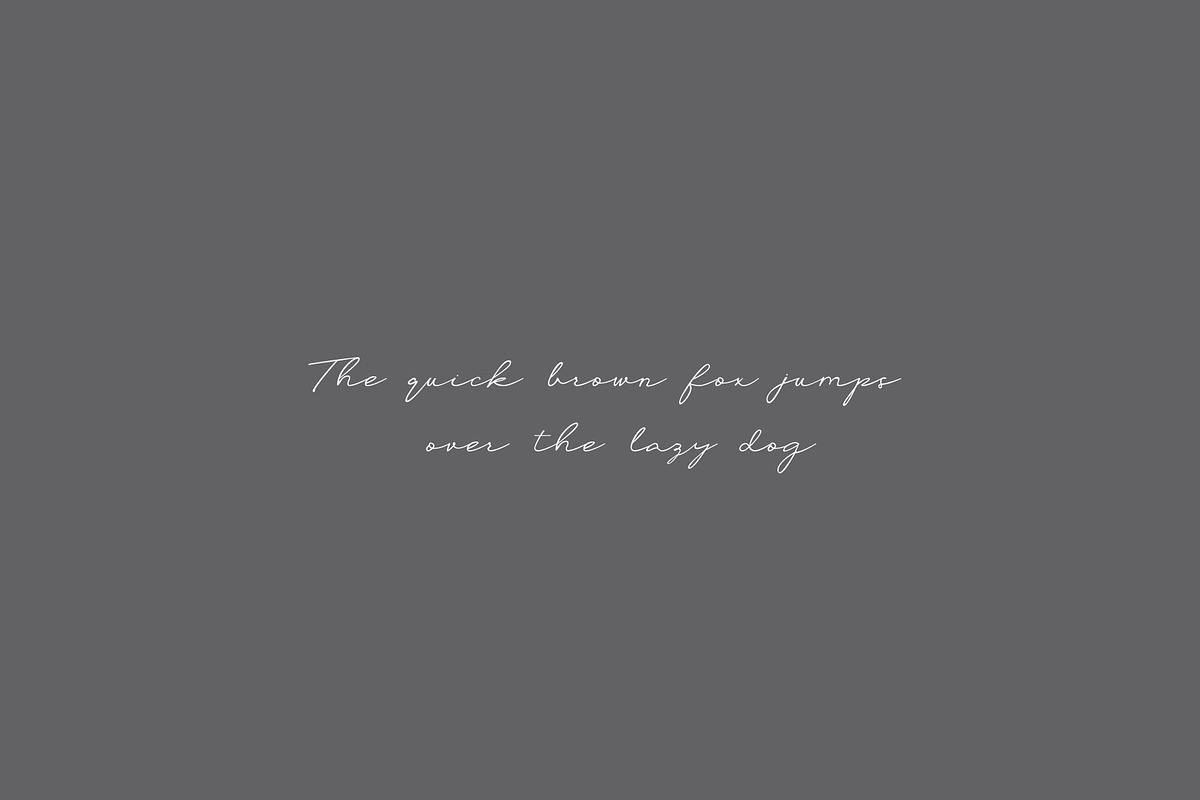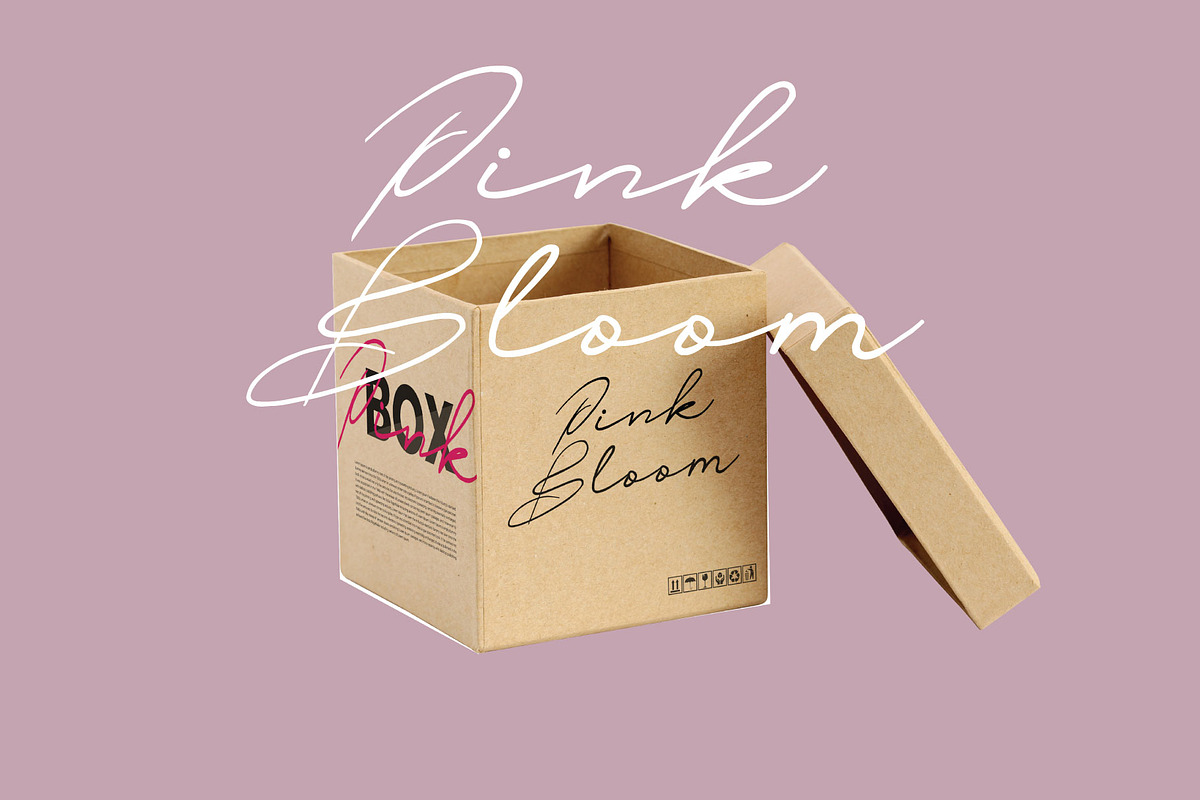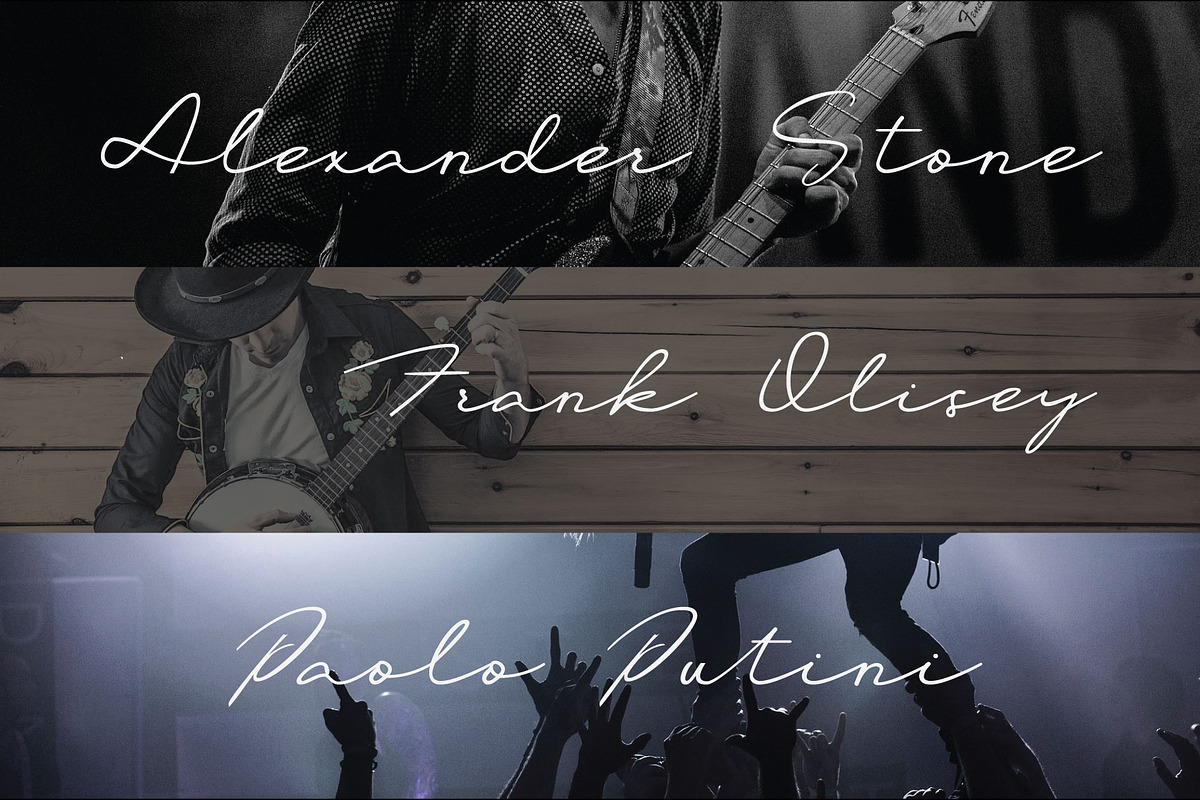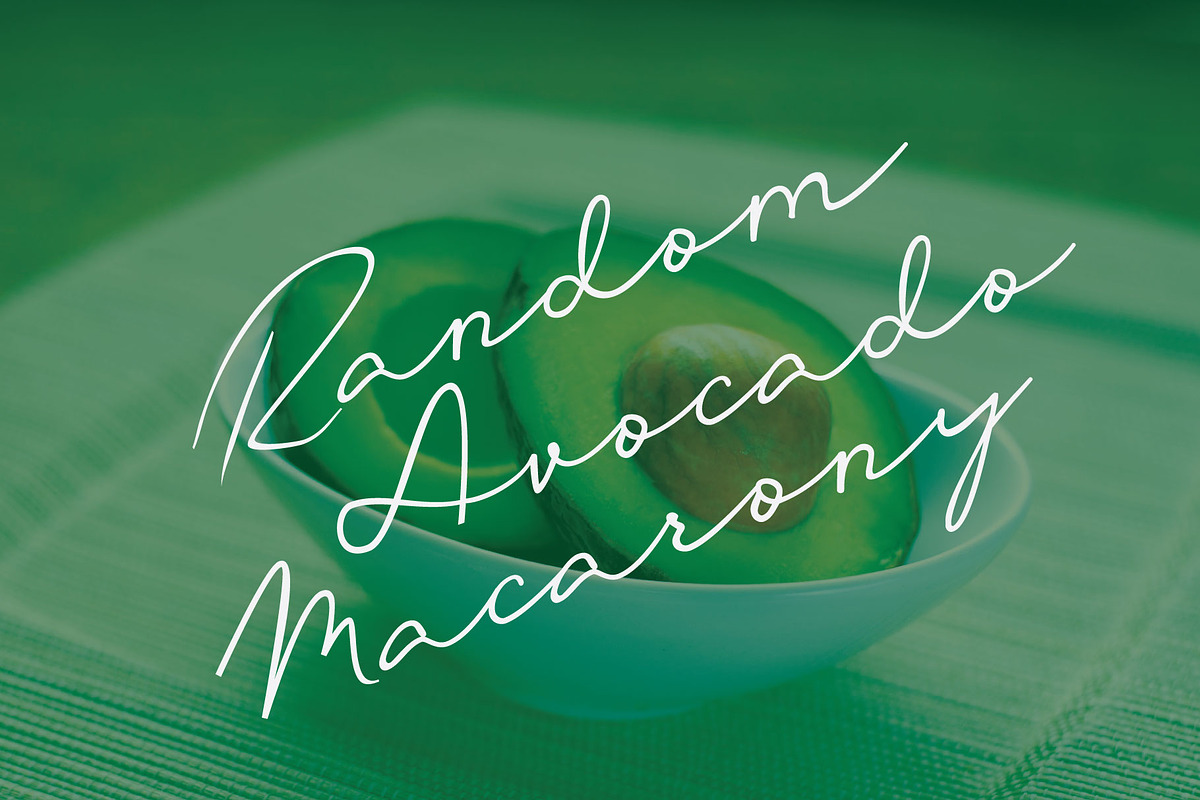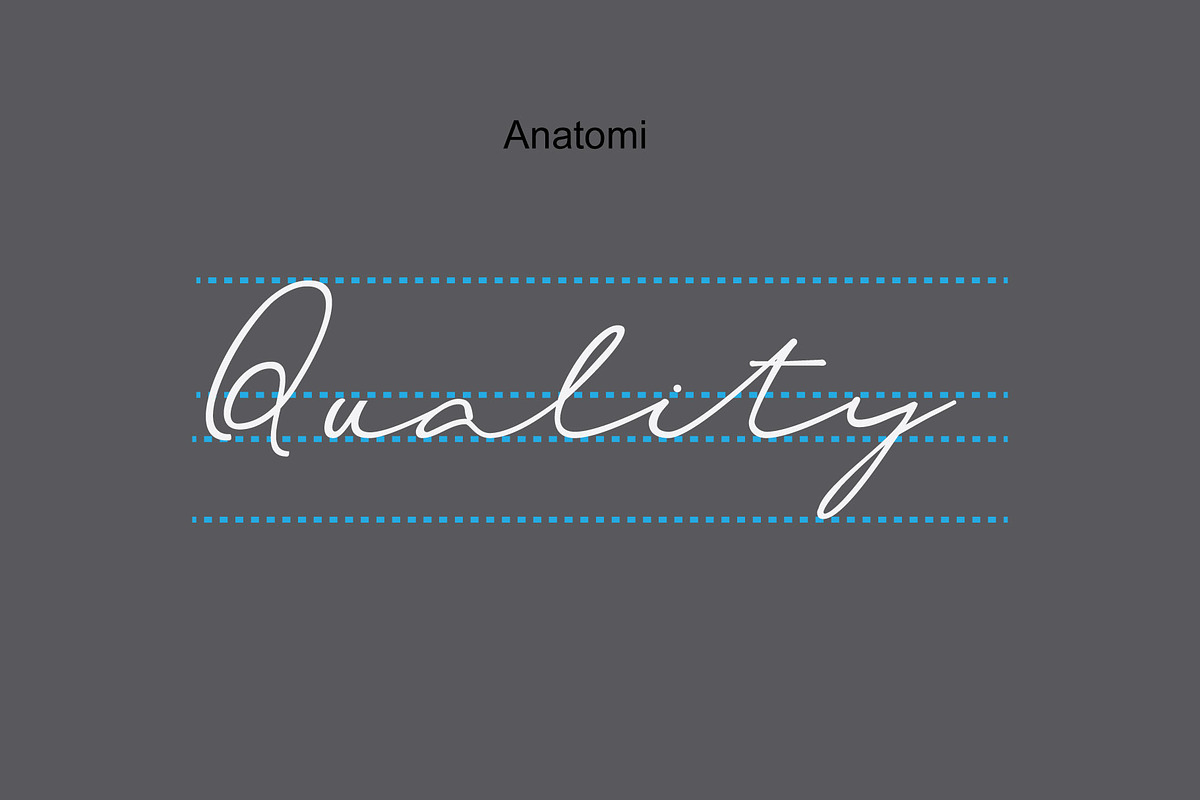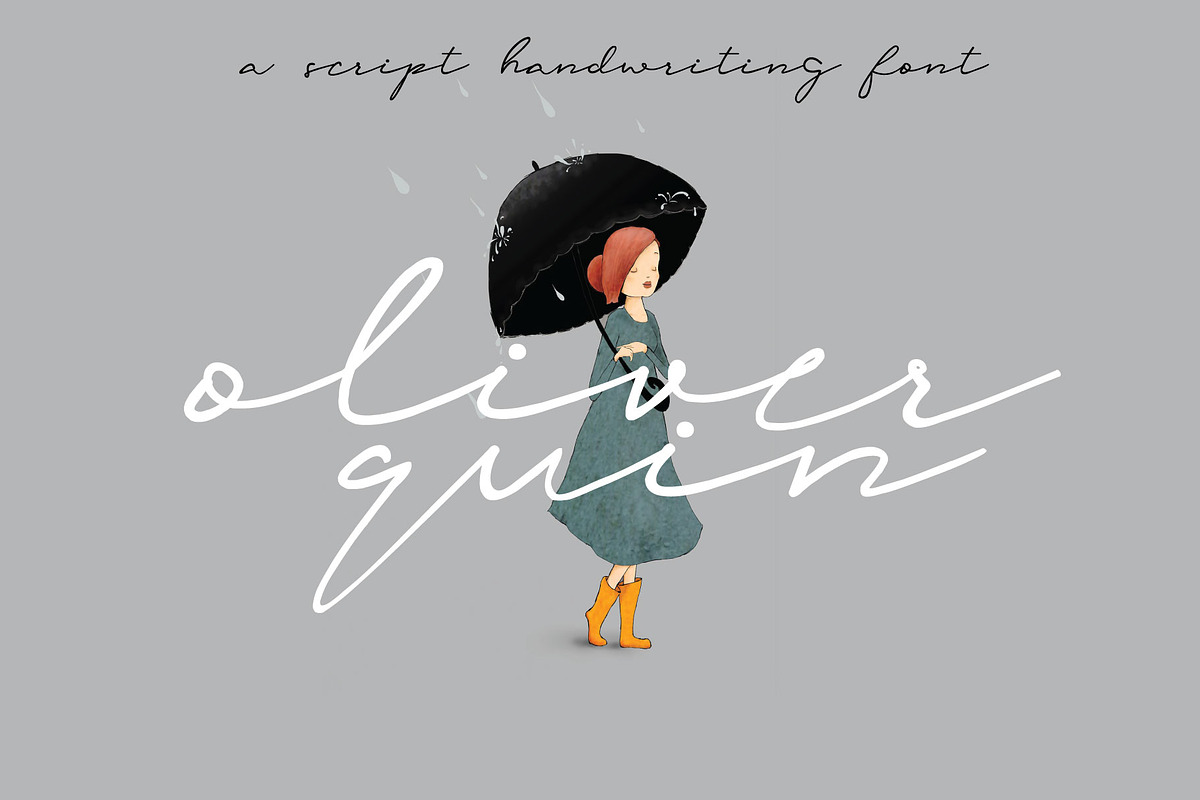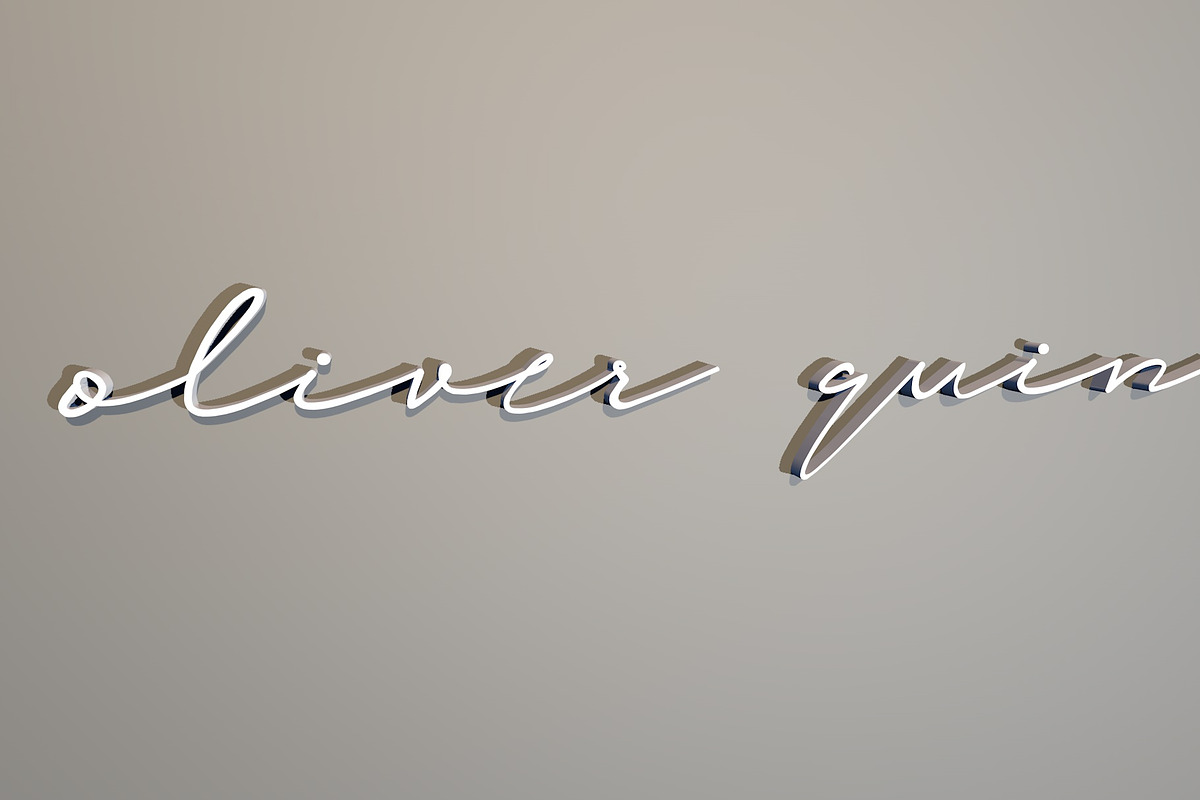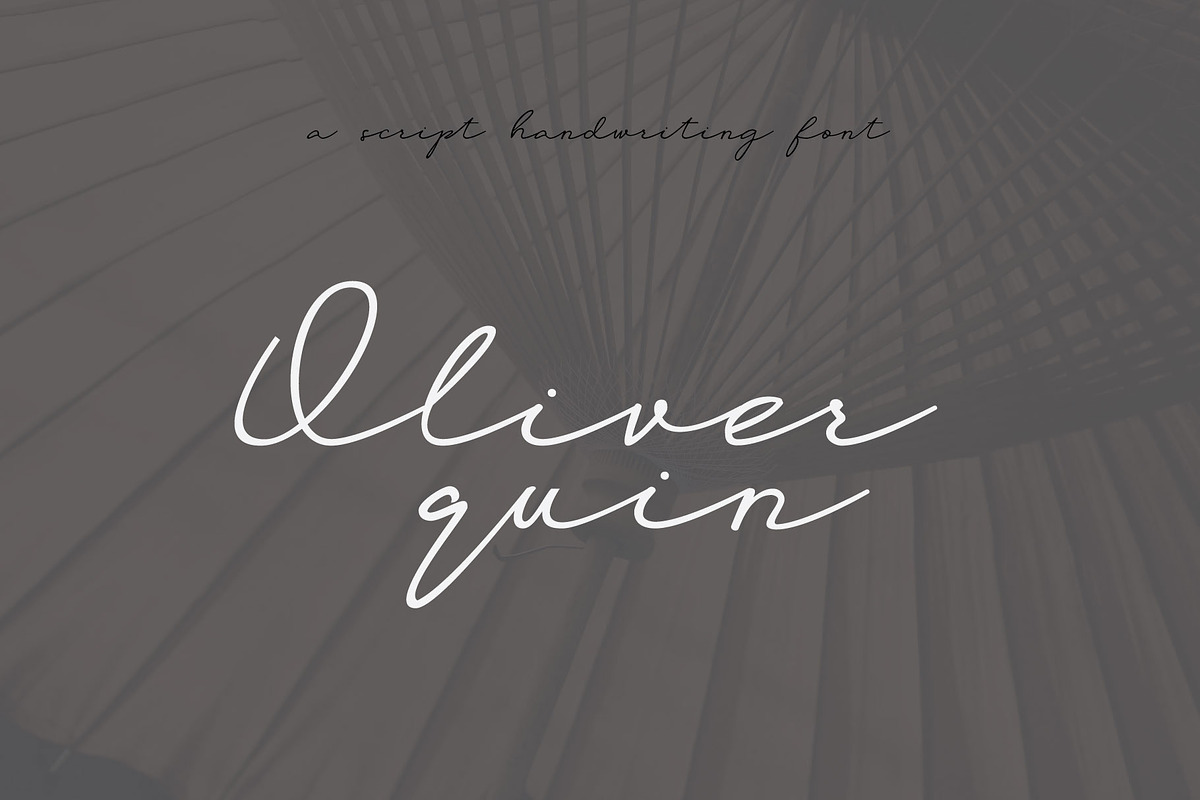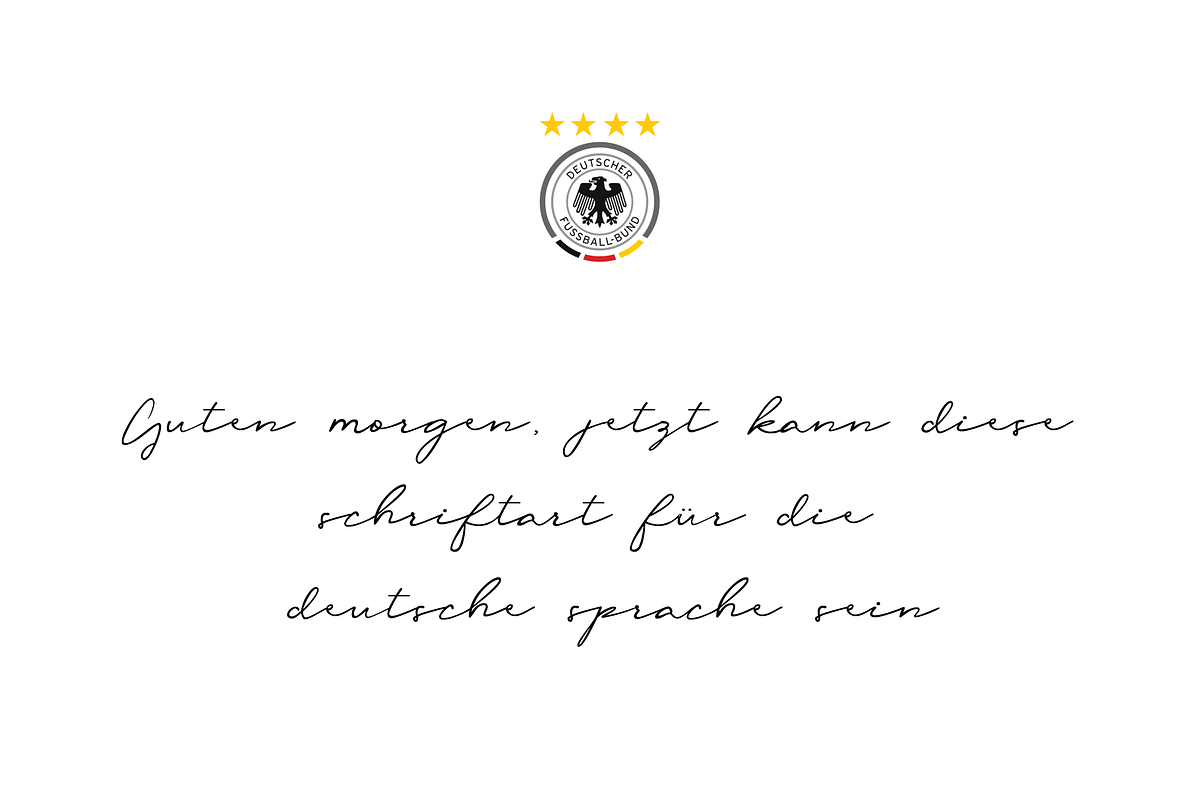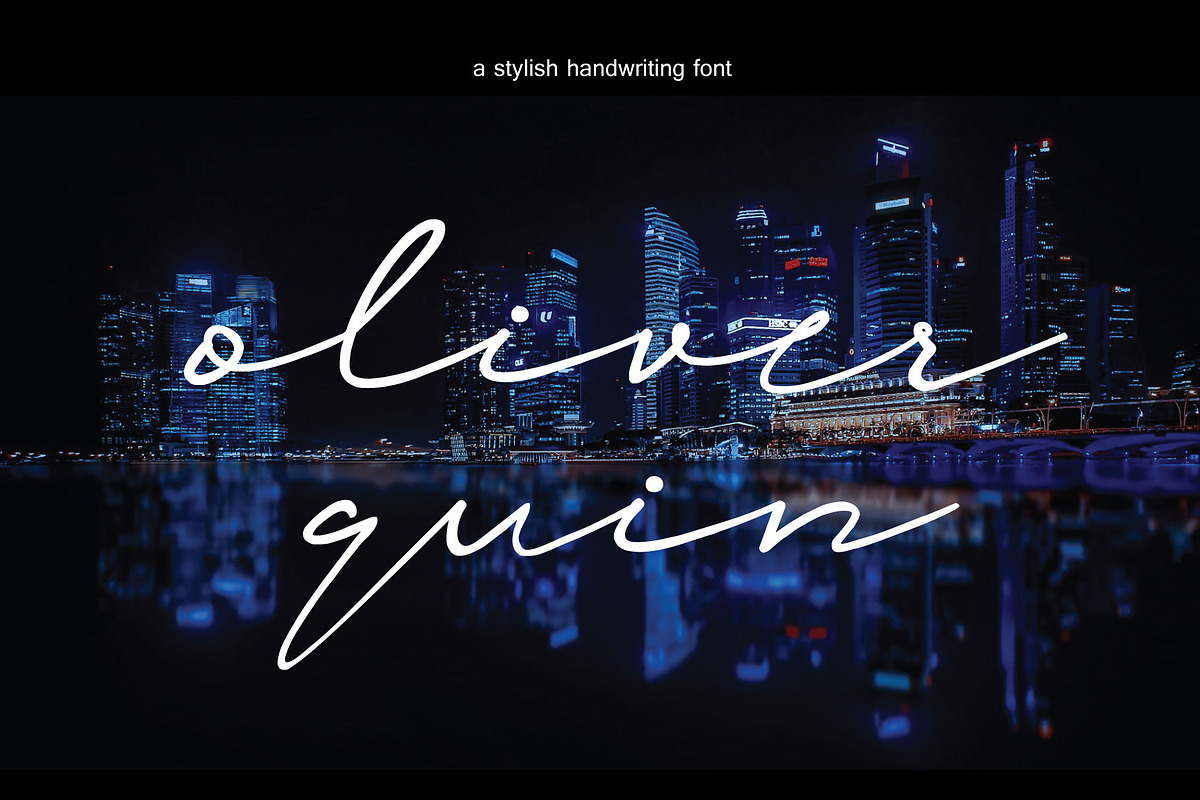
oliver quin - handwriting script
Oliver Quin is a beautifully crafted low-italic handwritten script font designed to bring elegance, warmth, and authenticity to your creative projects. Featuring smooth, flowing strokes and naturally connected letterforms, this font captures the charm of genuine handwriting while maintaining excellent readability. Its balanced curves and graceful rhythm create a sophisticated yet relaxed appearance, making it suitable for both modern and timeless designs.
Whether you're creating logos, branding materials, packaging, wedding invitations, greeting cards, social media graphics, product labels, or stylish quotes, Oliver Quin delivers a polished and personal touch. The subtle italic angle adds movement and character without sacrificing clarity, allowing your text to feel dynamic and expressive. Perfect for designers, entrepreneurs, and content creators, Oliver Quin is a versatile script font that enhances every project with effortless beauty, elegance, and a handcrafted feel.